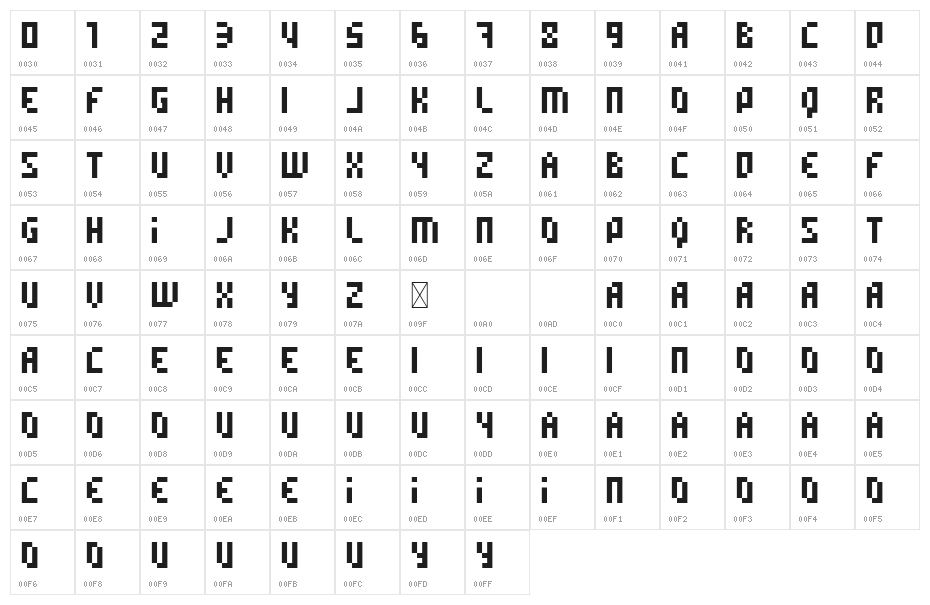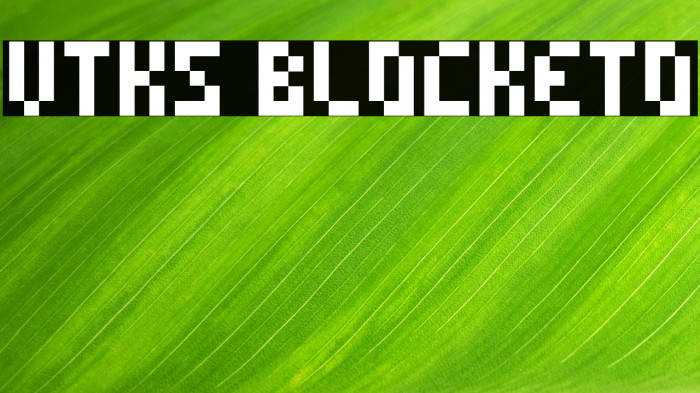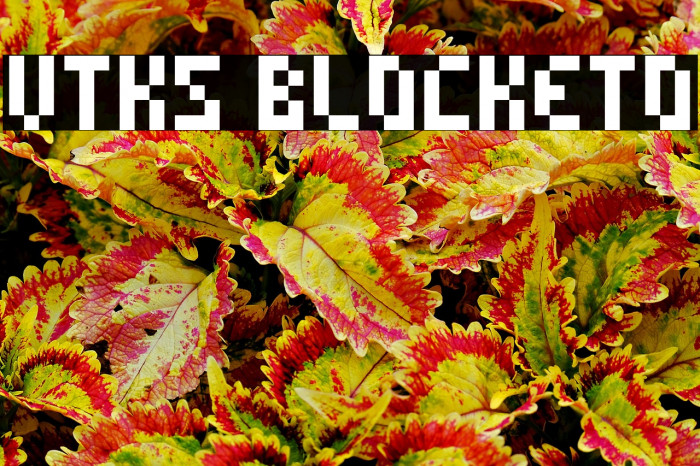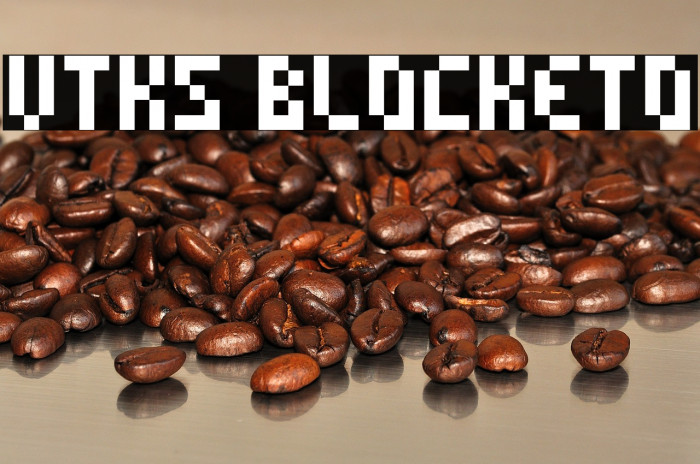
vtks blocketo Font
vtks blocketo Description
This font features a bold, blocky design with a distinctly geometric and pixelated appearance. Each character is constructed with sharp, angular edges, giving it a digital, retro feel reminiscent of early video game graphics. The uppercase and lowercase letters maintain a consistent height and width, contributing to a uniform and cohesive look. The numerals and special characters follow the same stylistic approach, ensuring visual harmony across all elements. The font's strong presence and unique style make it ideal for projects that require a modern yet nostalgic touch.
| Overall Style | Retro, Digital |
| Use Case | Logos, Headlines, Posters |
| Proposed Projects | Ideal for video game graphics, tech-themed posters, digital art projects, and retro-inspired branding. |